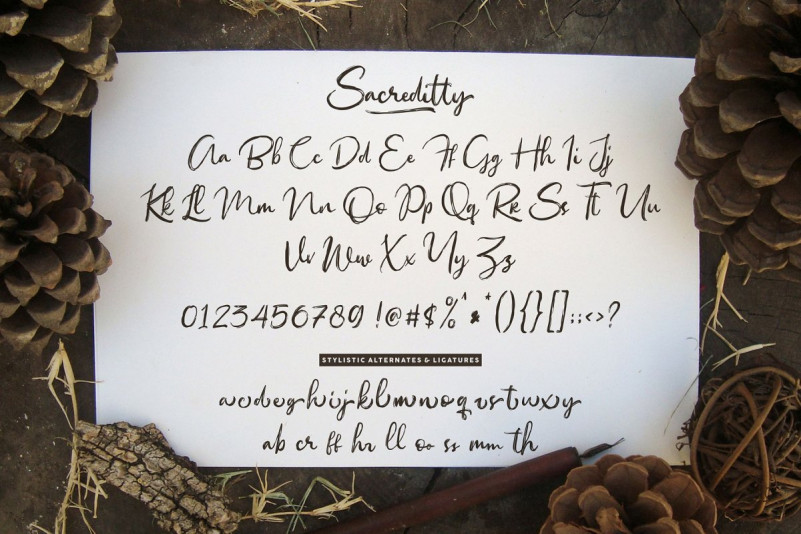
Sacreditty Handbrush Font
Sacreditty Handbrush Demo Font
This is handbrush script font with dry brush and signature style. These typefaces are expertly craft and perfect for any use where you are wanting a personal or casual touch! Proudly presents latest product Sacreditty Brush Font! It is designed and shared by Garisman Std. Sacreditty Handbrush Font combines attractive curves with a fresh urban edge; delivering a stylish script which is guaranteed to add an eye-catching appeal to your logo designs, brand imagery, handwritten quotes, product packaging, merchandise & social media posts.